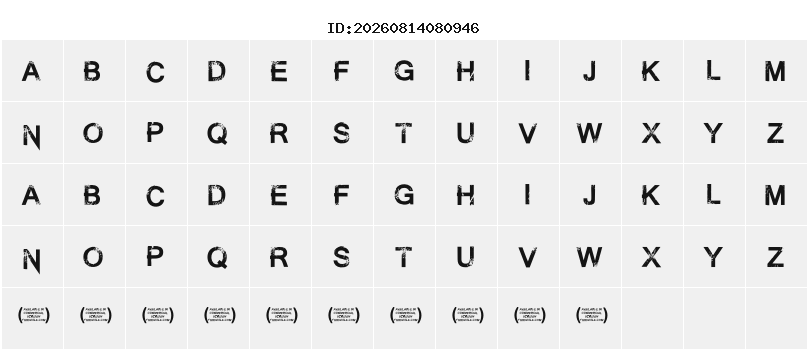
• Font Name: Summon the Executioner
• Designer: Chris Vile
• Manufacturer: Font Monget
• Description: Summon the Executioner Regular is a font by Font Monget, designed by Chris Vile in 2014.
About Summon the Executioner.otf
Summon the Executioner.otf is a modern, elegant sans-serif font designed for ultimate readability and visual harmony. Perfect for branding, headlines, web design, and print materials.